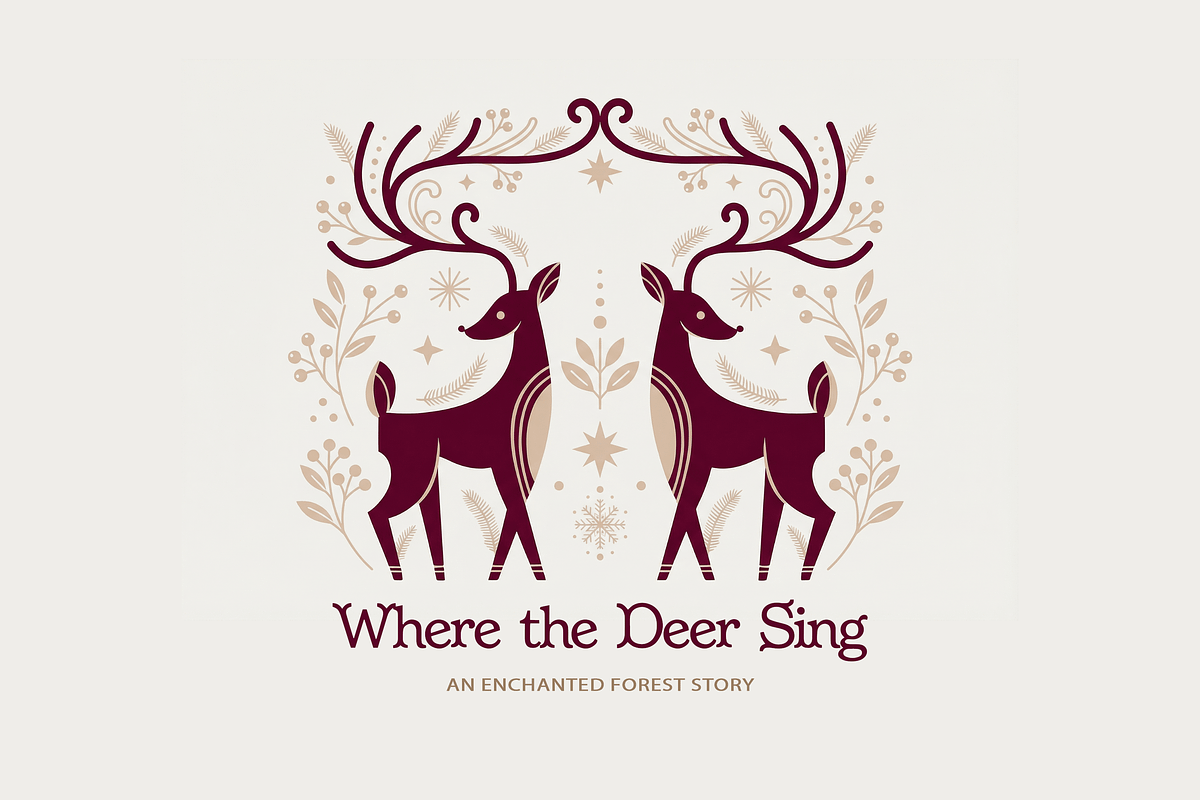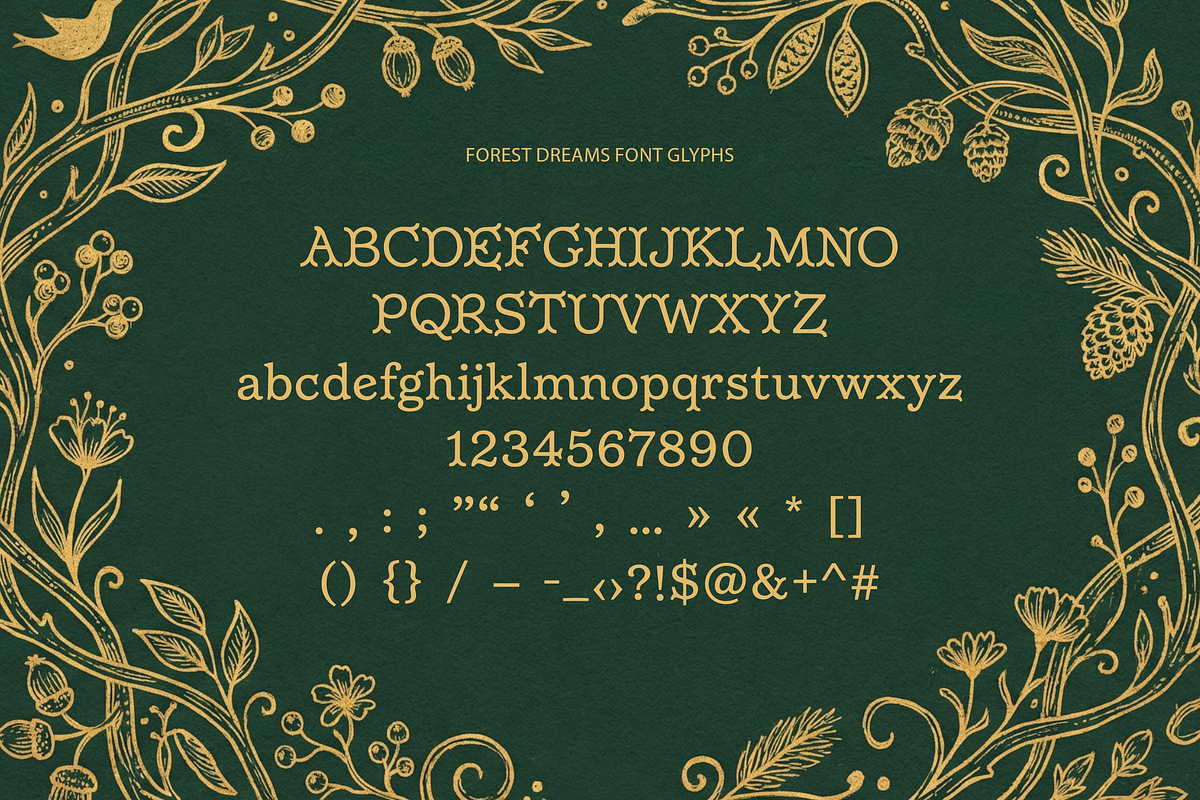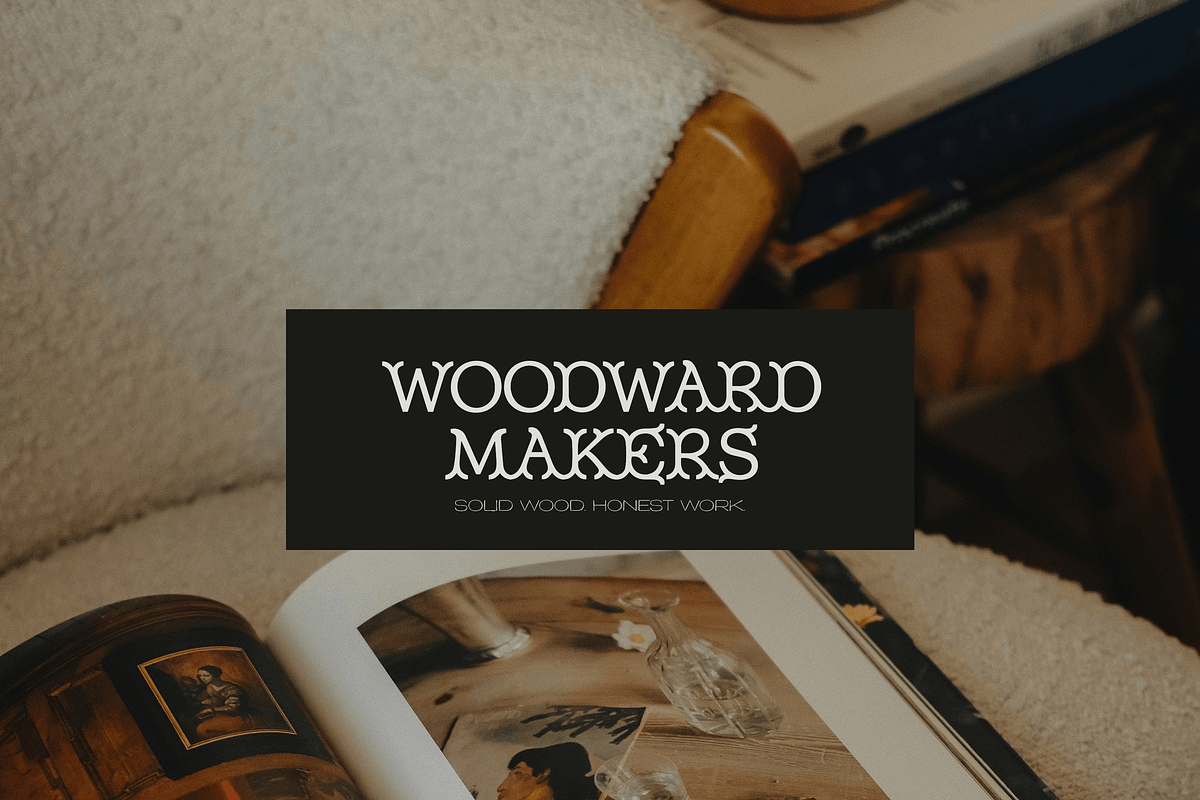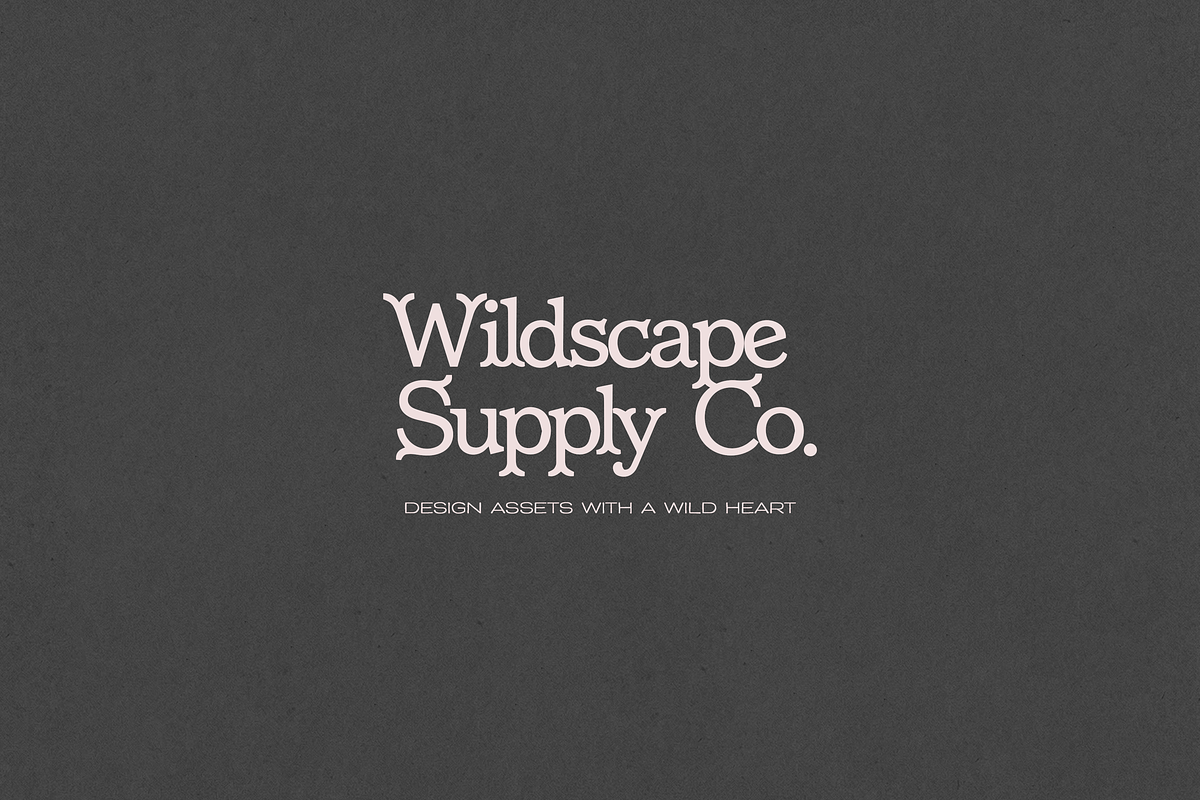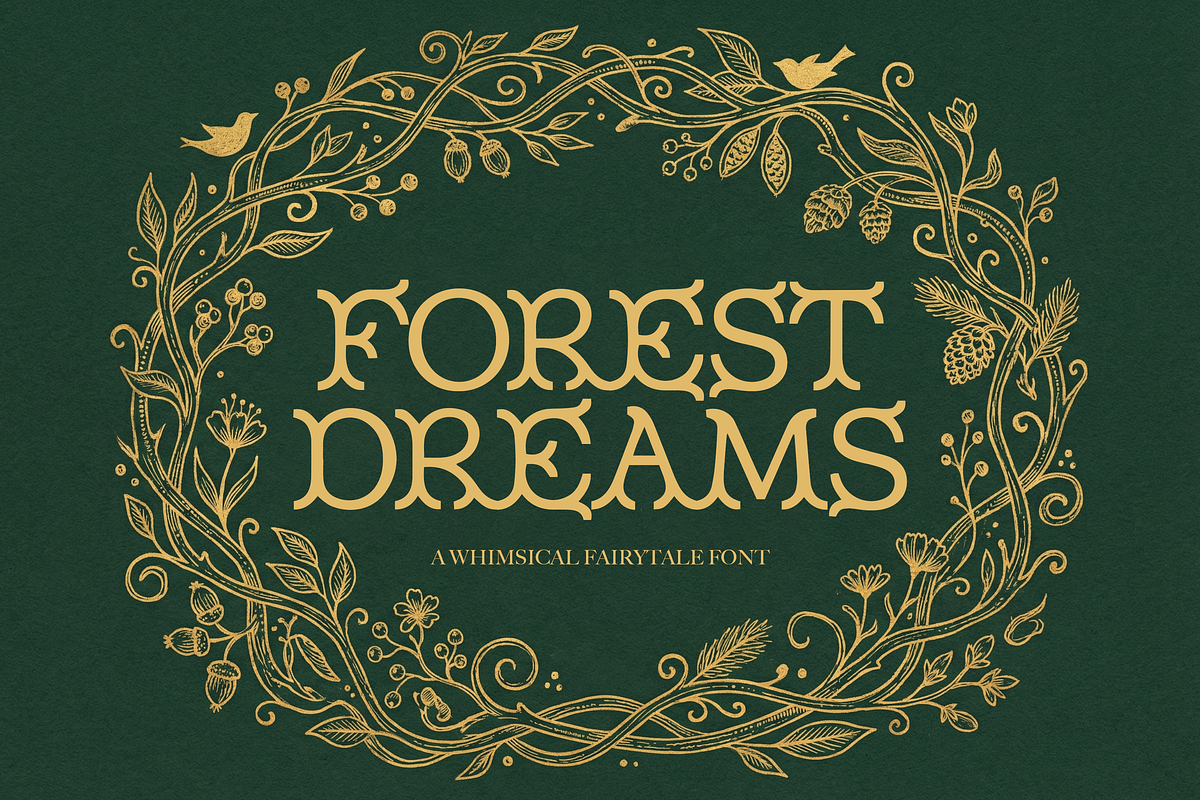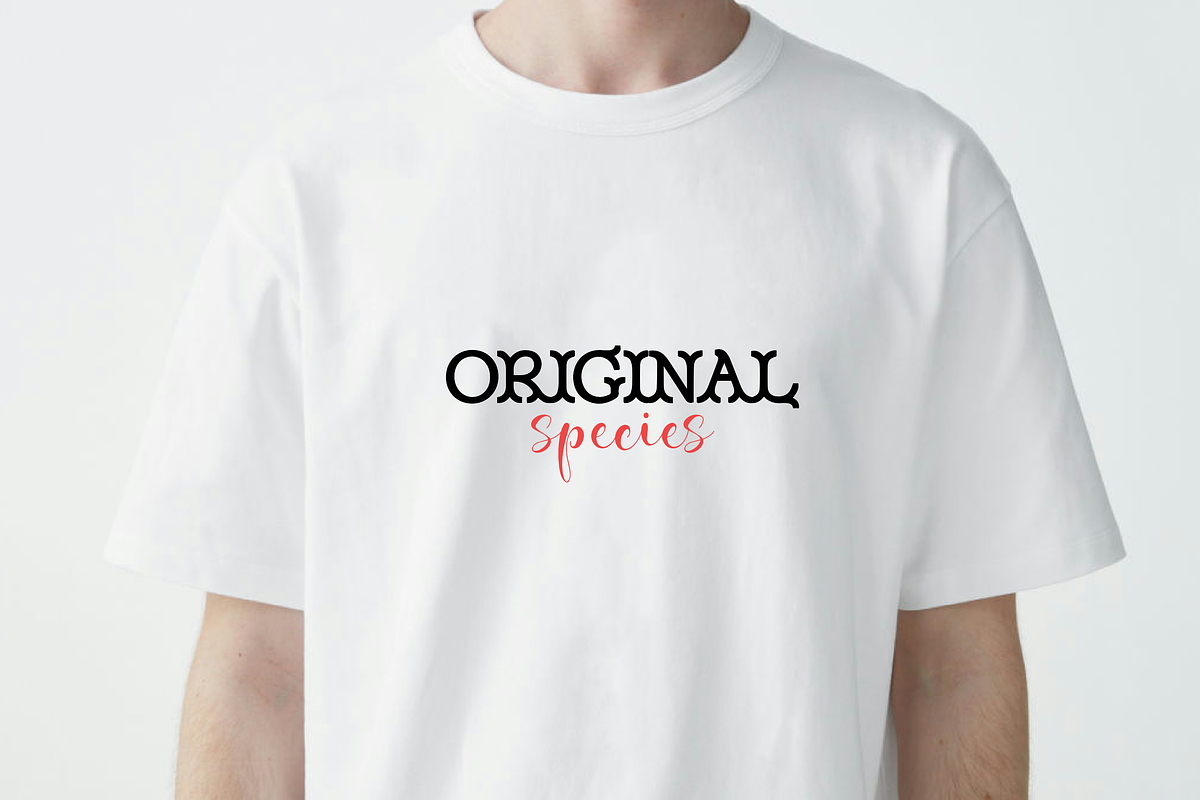
Forest Dreams | Whimsical Font
Forest Dreams is a whimsical, fairytale-inspired display serif designed to bring an enchanted, storybook mood to your projects. With sculpted letterforms, curved terminals, and elegant contrast, it feels classic, magical, and beautifully ornamental - made for eye-catching headlines and titles.
- Logos & branding
- Book covers & chapter titles
- Packaging, labels & product design
- Posters, invitations & quotes
- Fantasy, cottagecore & woodland aesthetics
- Decorative display serif style
- High-impact for headlines and large text